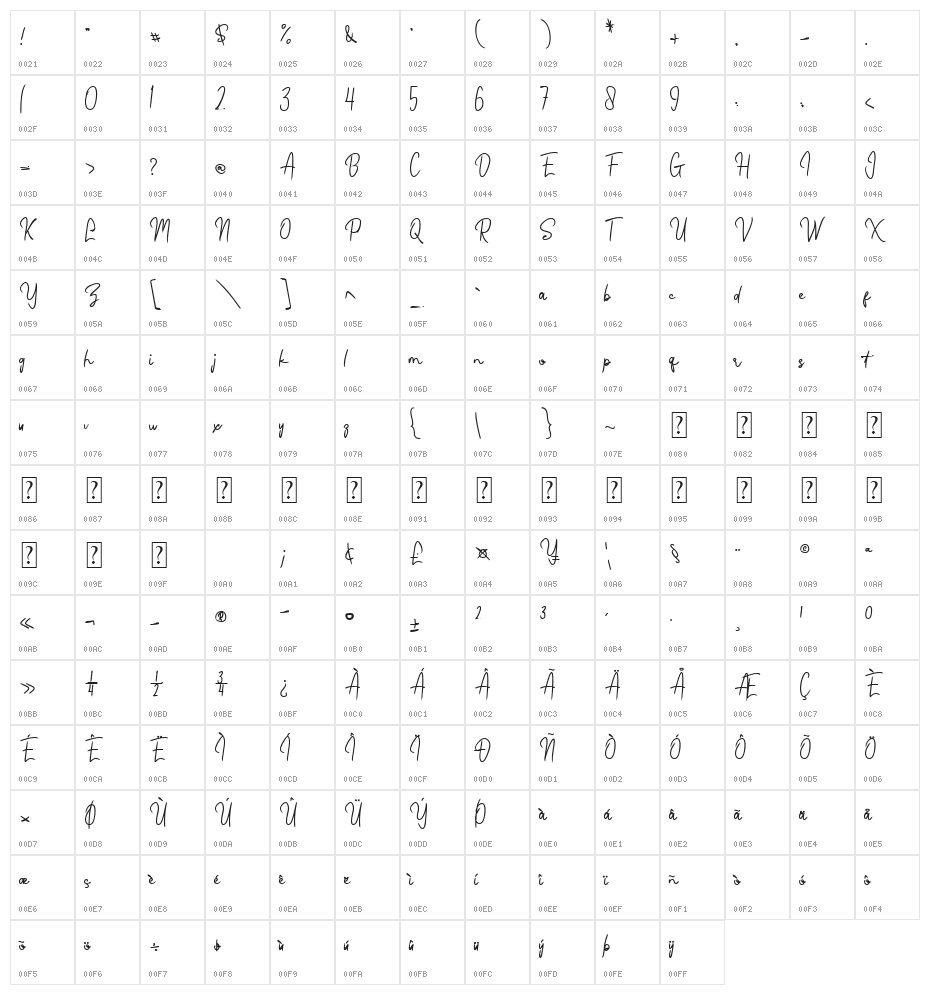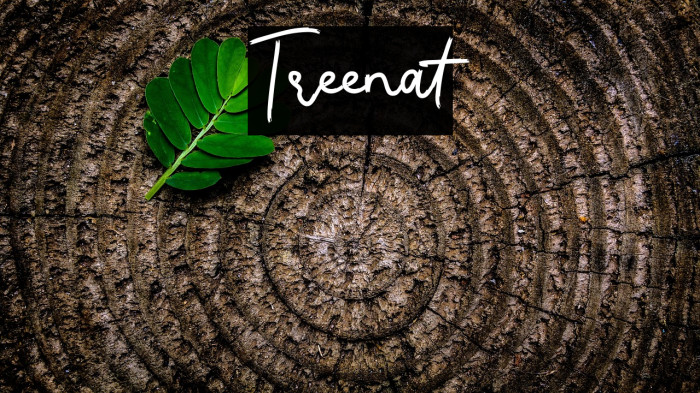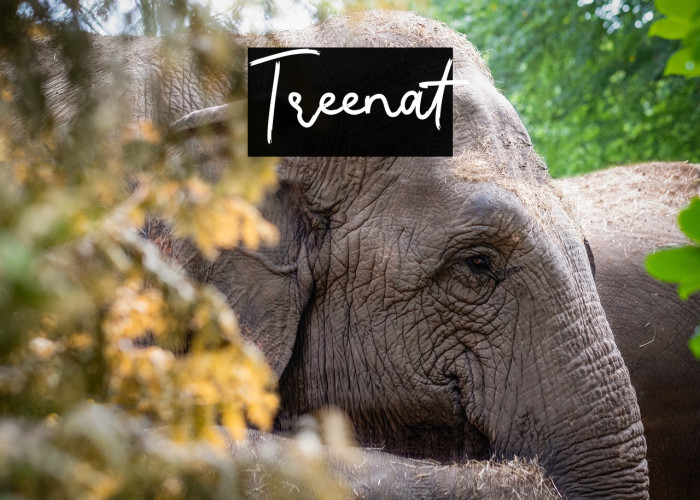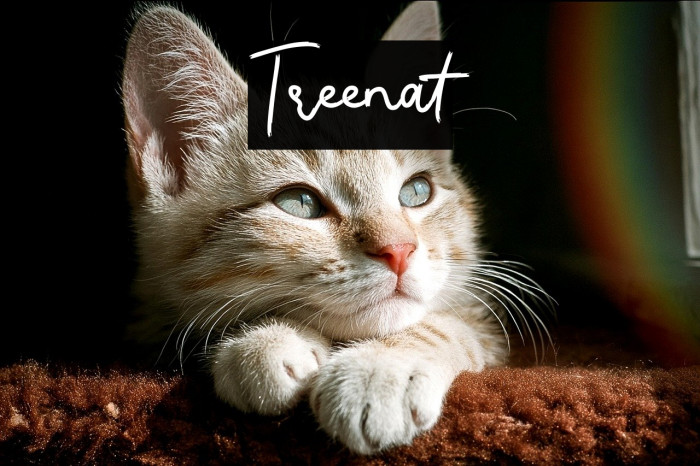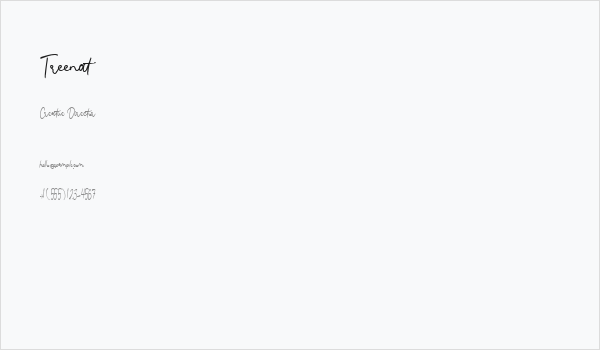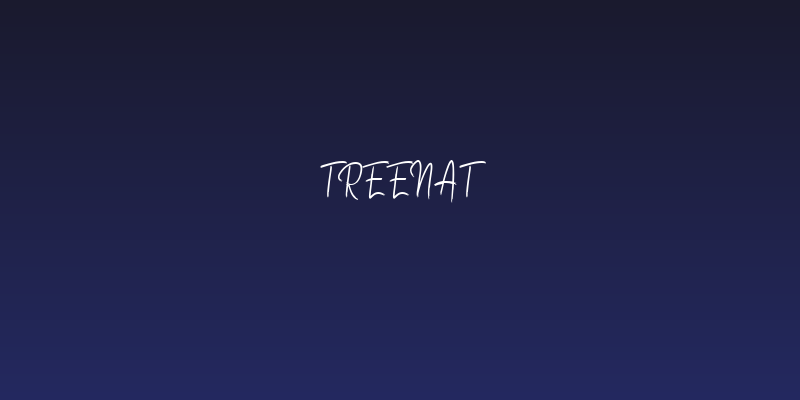
Treenat Font
Treenat Description
A playful, handwritten script font with tall, narrow letterforms and fluid, connected strokes. The characters have a casual, informal feel, with varying stroke thickness and a lively, energetic appearance. The uppercase and lowercase letters are both highly legible, and the numerals and punctuation maintain the same whimsical style.
| Overall Style | Playful, Casual, Modern |
| Use Case | Logos, Headlines, Invitations, Social media posts |
| Proposed Projects | Greeting cards, invitations, personal branding, social media graphics, quotes, casual posters. |